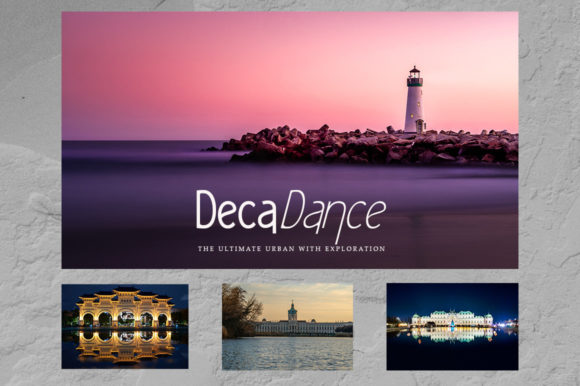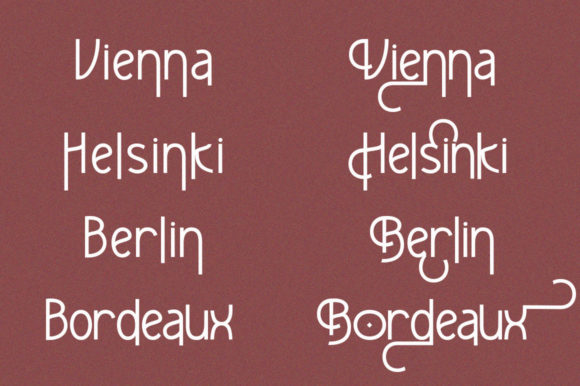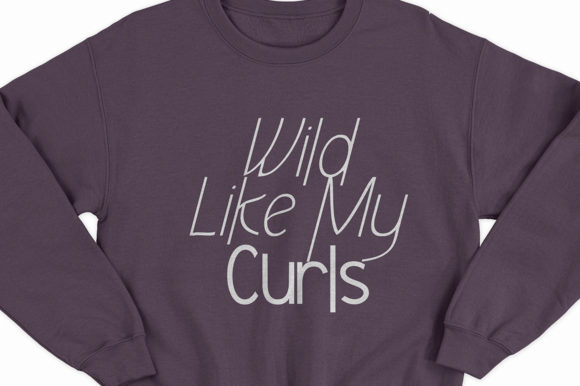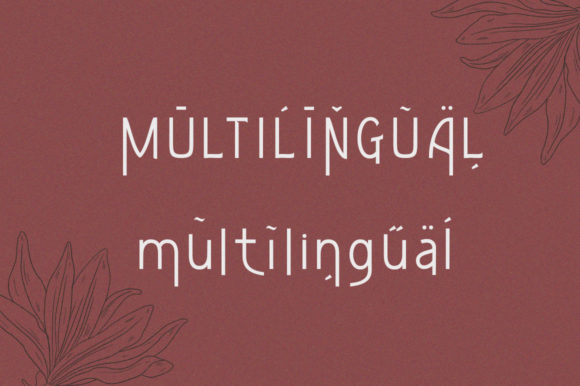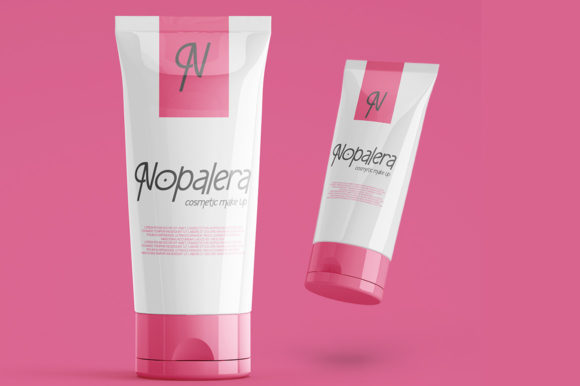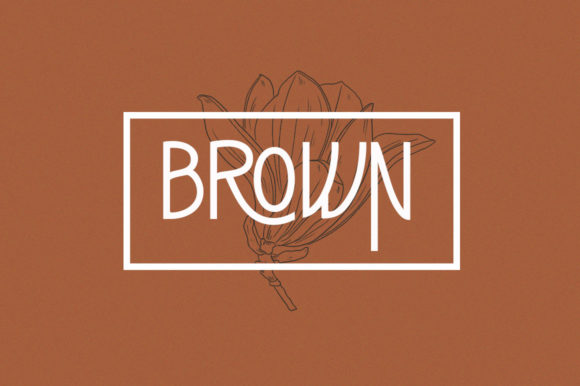
Gleams Font: Elevate Your Designs with a Modern Sans Serif
In the world of typography, fonts play a crucial role in conveying messages, expressing creativity, and setting the tone for various design projects. For designers, crafters, and DIY enthusiasts, finding the perfect font can be a daunting task. However, if you’re looking for a distinct and modern sans serif font, look no further than Gleams Font. In this article, we’ll explore the features, uses, and benefits of Gleams Font, and why it’s an excellent addition to your typography collection.
What is Gleams Font?
Gleams Font is a contemporary sans serif font designed to make a statement. Its clean lines, precise curves, and geometric shapes create a visually appealing and versatile typeface. The font’s modern aesthetic makes it perfect for a wide range of applications, from digital designs to print materials.
Key Features of Gleams Font
- Modern sans serif design: Gleams Font boasts a fresh and sleek design, ideal for creating modern and sophisticated designs.
- Versatile: This font can be used for various purposes, including logos, headings, body text, and more.
- Highly legible: Gleams Font features clear and precise letterforms, ensuring excellent readability.
- Extensive character set: The font includes a wide range of characters, covering multiple languages and special characters.
Uses of Gleams Font
Gleams Font is an incredibly versatile typeface, suitable for numerous design projects. Here are some ideas to get you started:
- Logos: Create a professional and modern logo for your business or brand.
- Wedding invitations: Add a touch of elegance and sophistication to your wedding stationery.
- Headings and titles: Use Gleams Font to create eye-catching headings and titles for your blog posts, articles, or social media graphics.
- T-shirts and apparel: Design unique and stylish t-shirts, hoodies, or other apparel with Gleams Font.
- Letterhead and signage: Create professional letterhead, signage, or posters that make a lasting impression.
- Labels and badges: Use Gleams Font to design labels, badges, or other small graphics that require a modern touch.
- News and magazines: Apply Gleams Font to your news or magazine designs for a fresh and contemporary look.
- Posters and flyers: Create stunning posters and flyers that grab attention with Gleams Font.
Benefits of Using Gleams Font
So, why choose Gleams Font for your design projects? Here are some benefits:
- Unique and distinctive: Gleams Font offers a fresh and modern take on sans serif typography, setting it apart from more traditional fonts.
- Time-saving: With its extensive character set and versatility, Gleams Font saves you time and effort in finding the perfect font for your project.
- Professional look: Gleams Font helps you achieve a professional and polished look, suitable for businesses, events, or personal projects.
- Easy to pair: This font pairs well with a variety of other typefaces, making it easy to create harmonious and visually appealing designs.
In conclusion, Gleams Font is an exceptional modern sans serif font that offers a world of creative possibilities. Its versatility, legibility, and unique design make it an excellent choice for designers, crafters, and DIY enthusiasts. Whether you’re working on a logo, wedding invitation, or poster, Gleams Font is sure to elevate your designs and make them stand out. So, why not give Gleams Font a try and experience the power of modern typography?